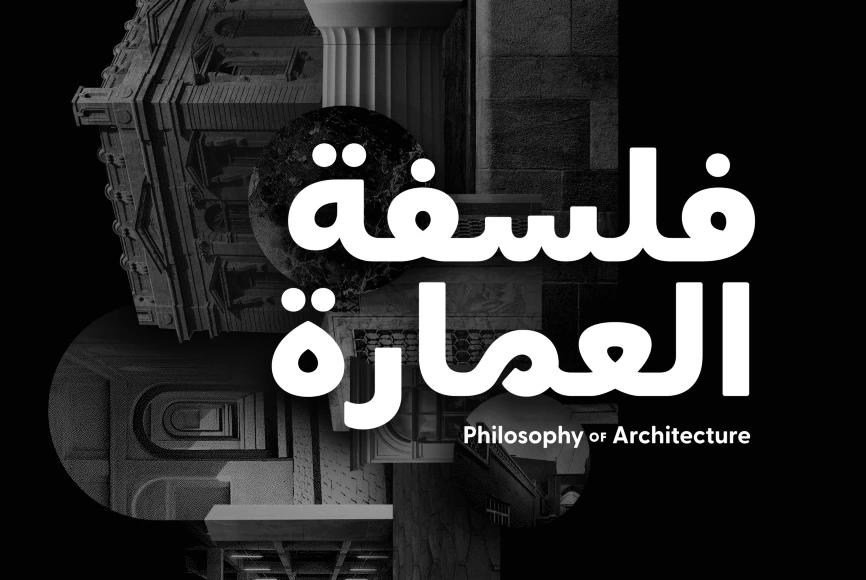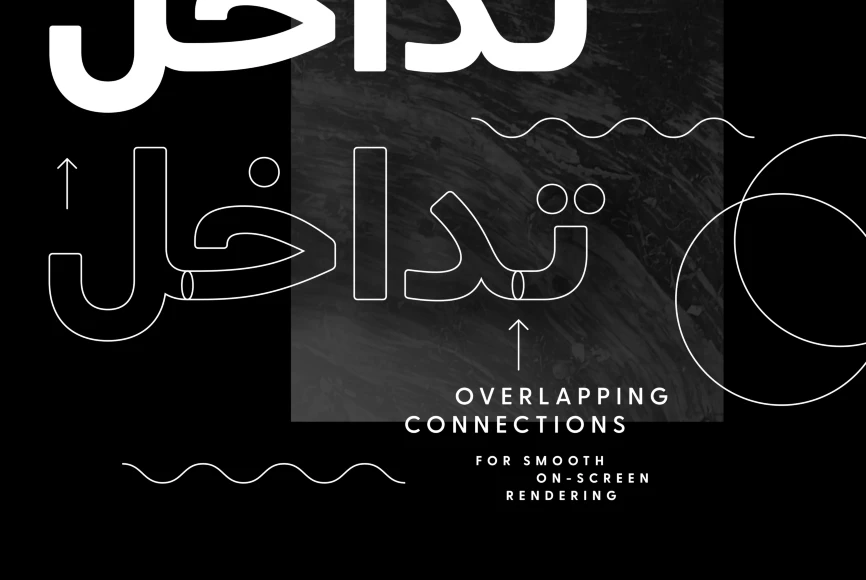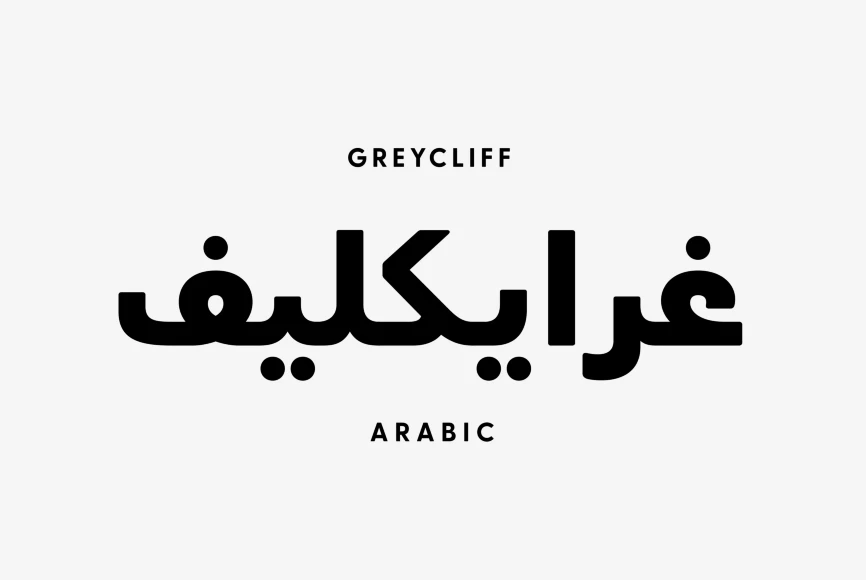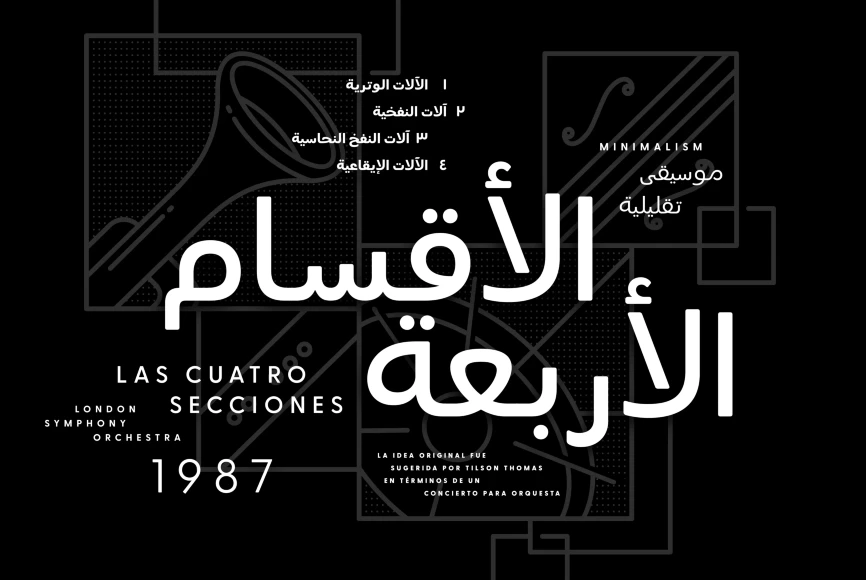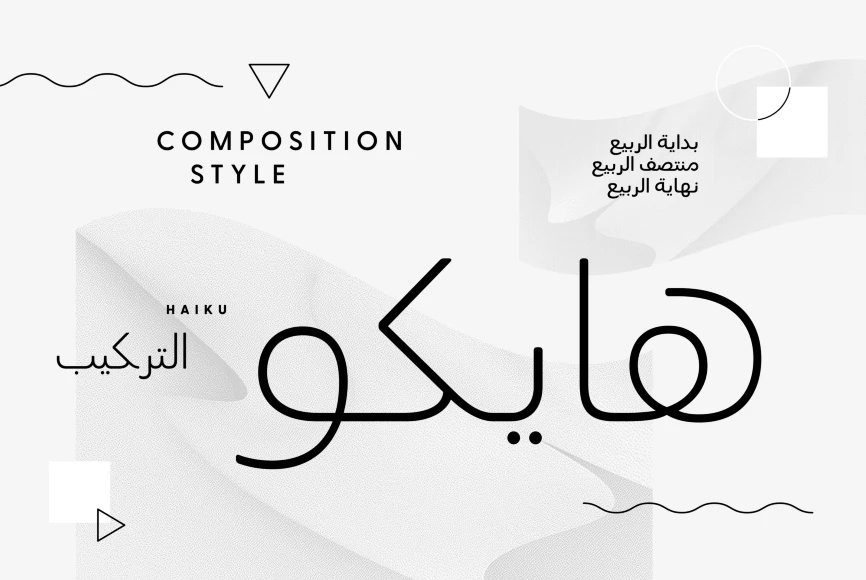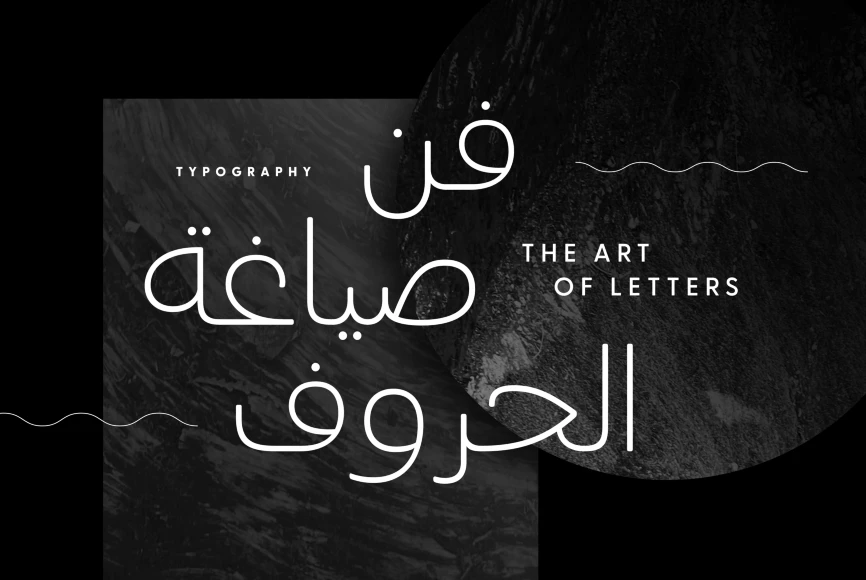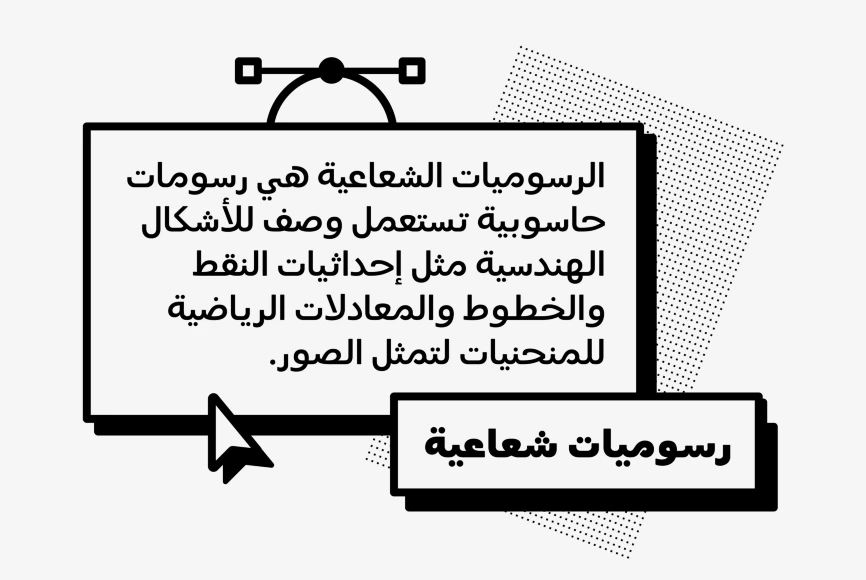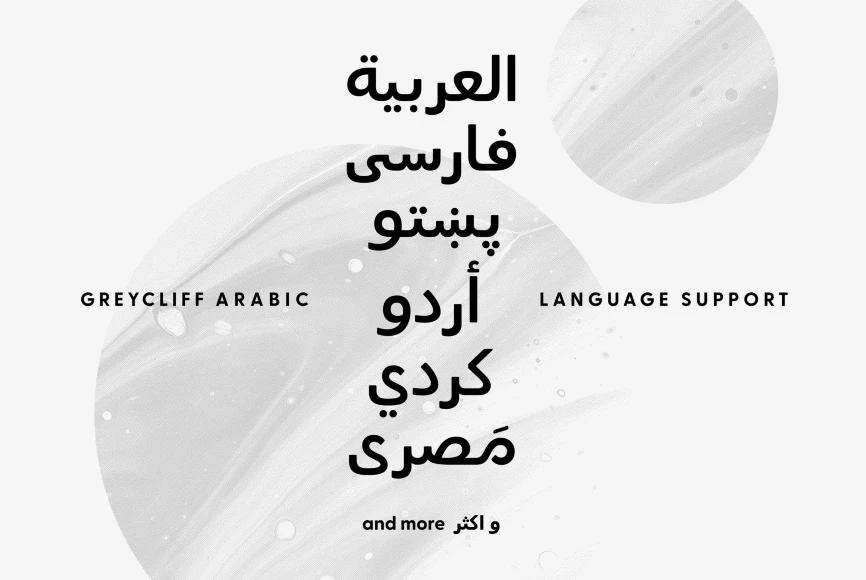
Greycliff Arabic
By Connary Fagen
Greycliff Arabic CF adapts Greycliff’s popular soft, geometric design to the Arabic script. Both Latin and Arabic glyphs are included, allowing for visually cohesive multiple-script applications. Greycliff’s original nine weights are covered, alongside Arabic script diacritics and wide language support, including Modern Standard Arabic, Persian, Pashto, and more. Greycliff Arabic CF works as a complete, self-contained type system, with both Arabic and Latin scripts included and designed to compliment one another.